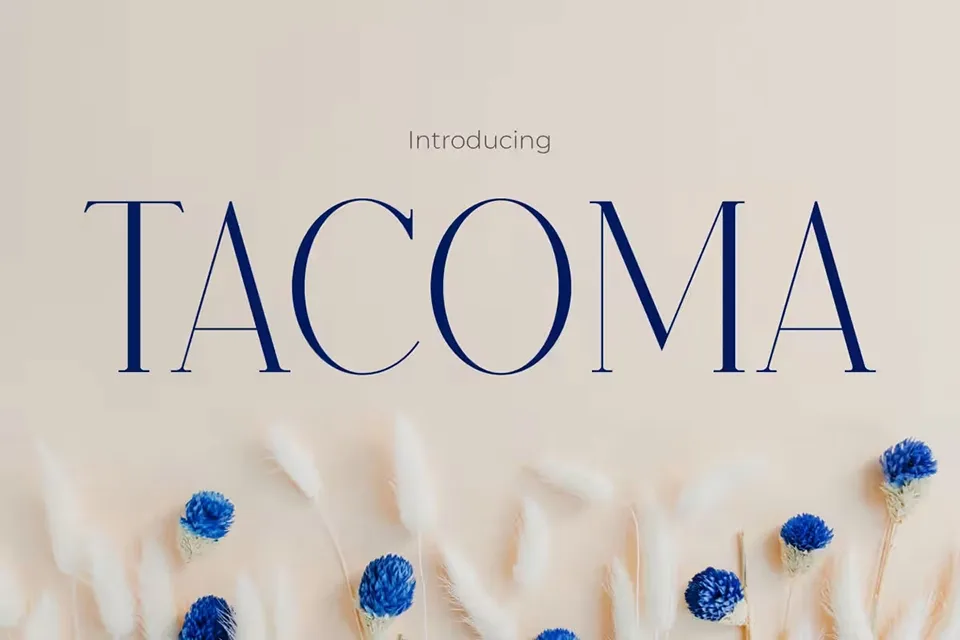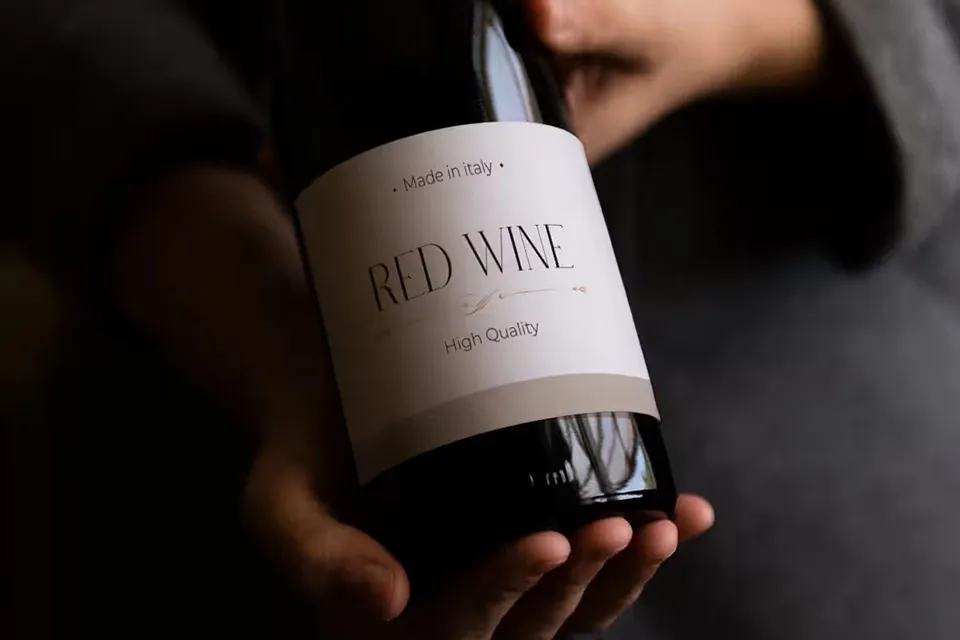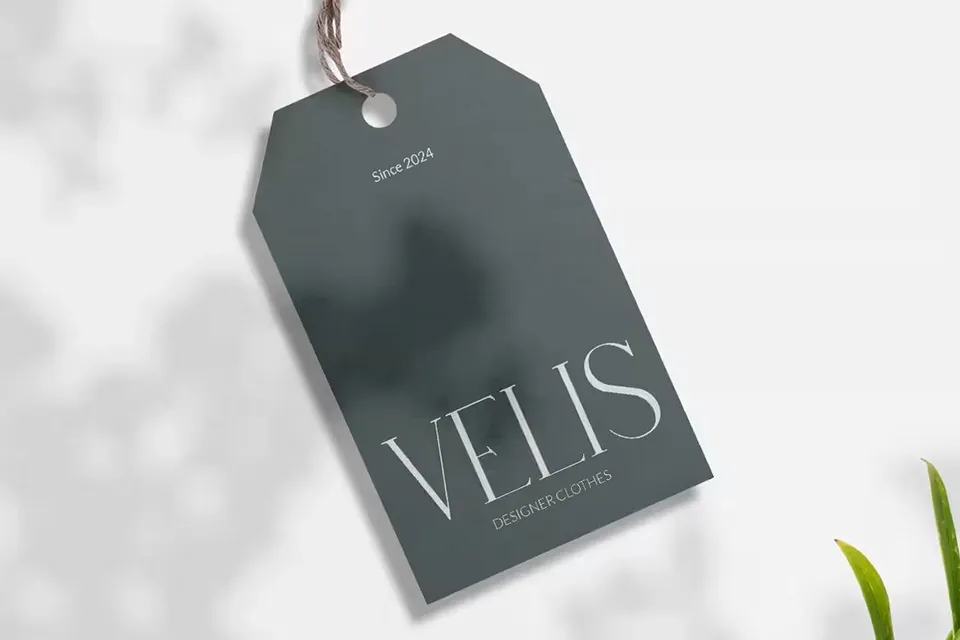
Tacoma Font
Tacoma Font is a modern serif font that blends elegance and sophistication, making it an excellent choice for fashion, branding, luxury magazines, and high-end editorial projects. Its refined letterforms and stylish presence add a touch of allure and professionalism to any design, captivating viewers with its timeless appeal.